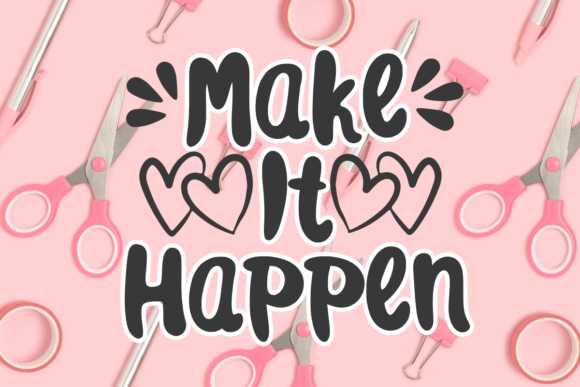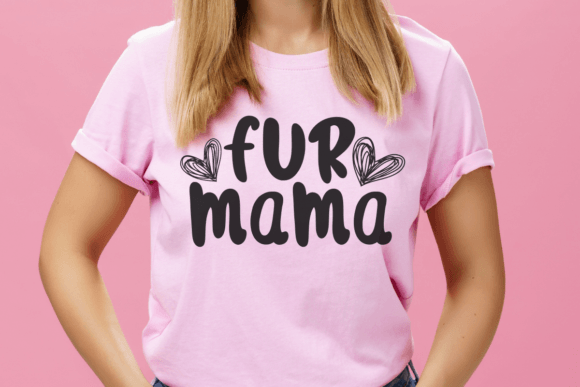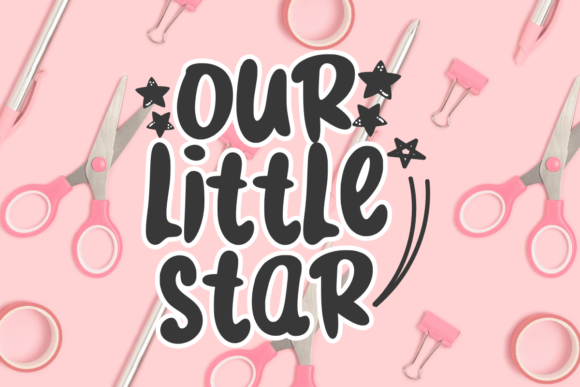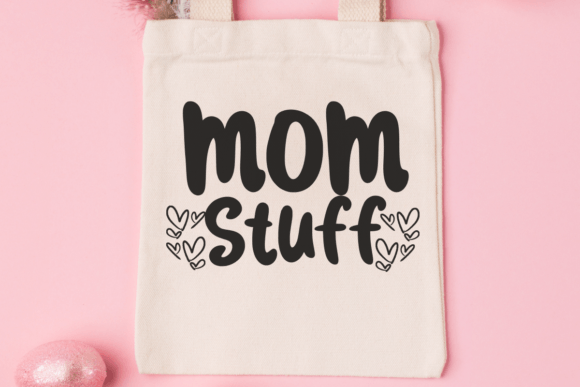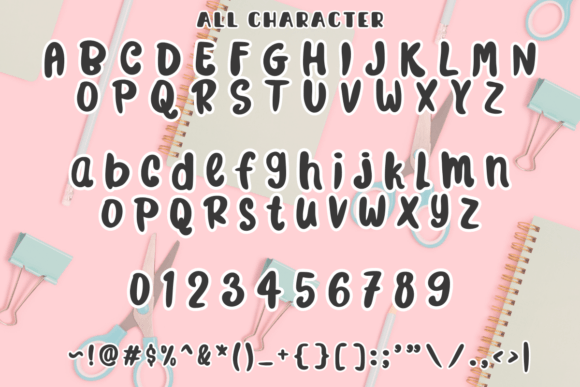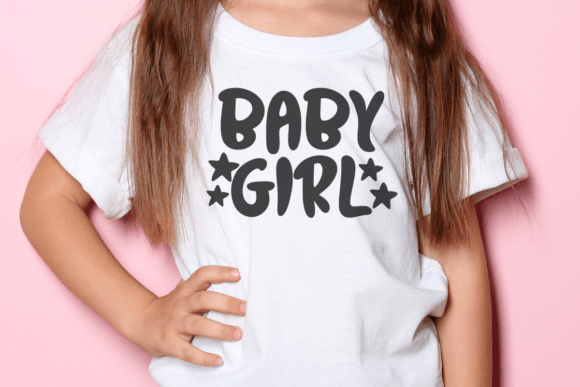
Introduction to Crafbold Font
Crafbold is a cool, incredibly cute and bubbly display font.
Add it to each of your party invitation, swimming gathering or pretty much any design that requires a touch of youth and joy .
Key Features of Crafbold Font